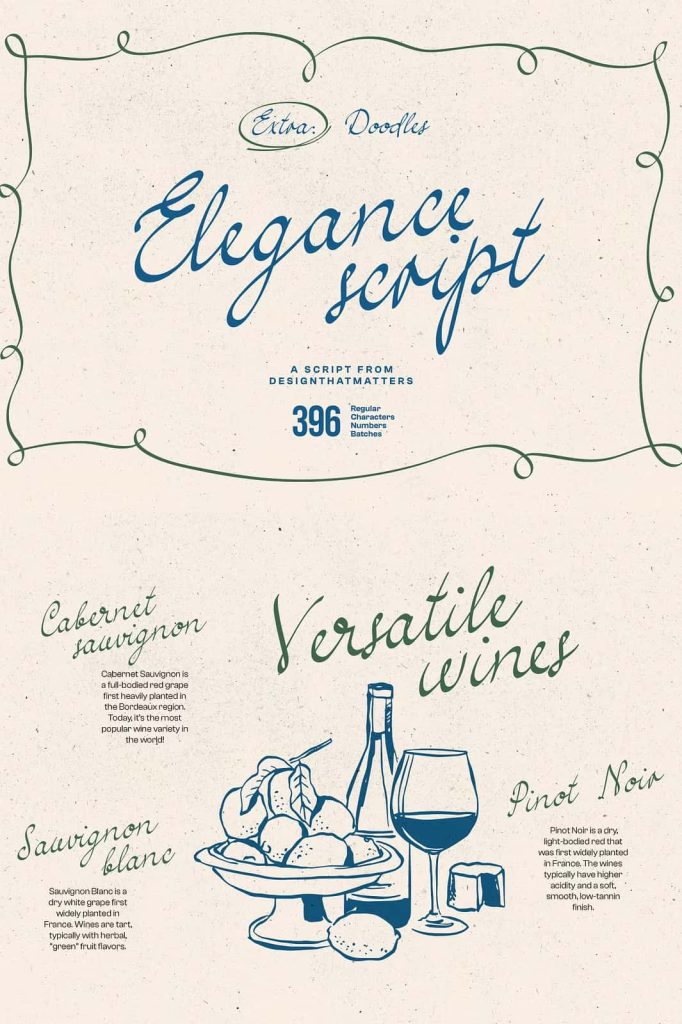
Simple Elegance ScriptleastedJuly 26, 2025Fonts Welcome natural looking Simple Elegance script with opentype ligatures for your next design project. Download